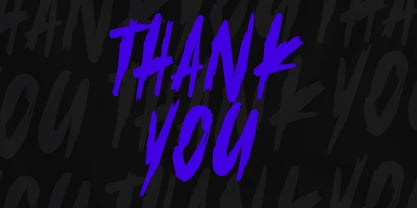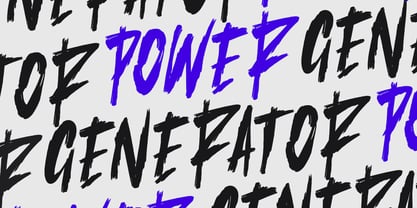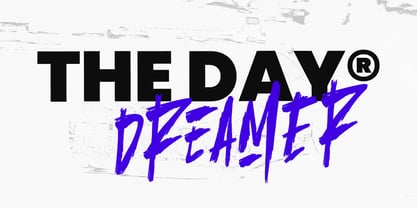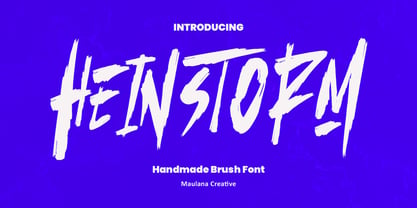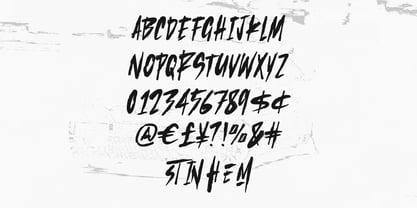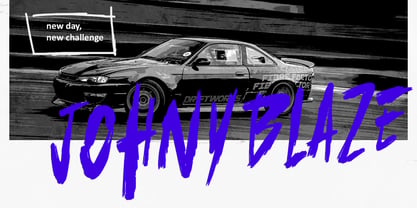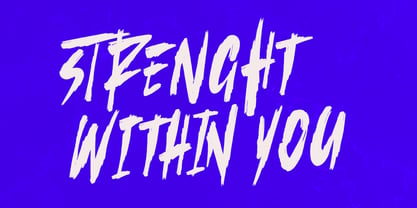
MC Heinstorm
by Maulana Creative
The MC Heinstorm Font Family was designed by Gilang Maulana and published by Maulana Creative. MC Heinstorm contains 1 styles. More about this family
Heinstorm is a handmade brush font with a sharp, bold, and energetic style, perfect for creating an intense atmosphere during Halloween and the end of the year. With bold brushstrokes and dramatic effects, this font evokes a modern horror, street style feel, and explosive energy, perfect for Halloween party designs, album music, branding, games, horror films, and even vibrant end of year promos. This font will make your designs stand out, fill you with power, and leave a bold impression ideal for those looking to stand out in the global digital.
Designers: Gilang Maulana
Foundry: Maulana Creative